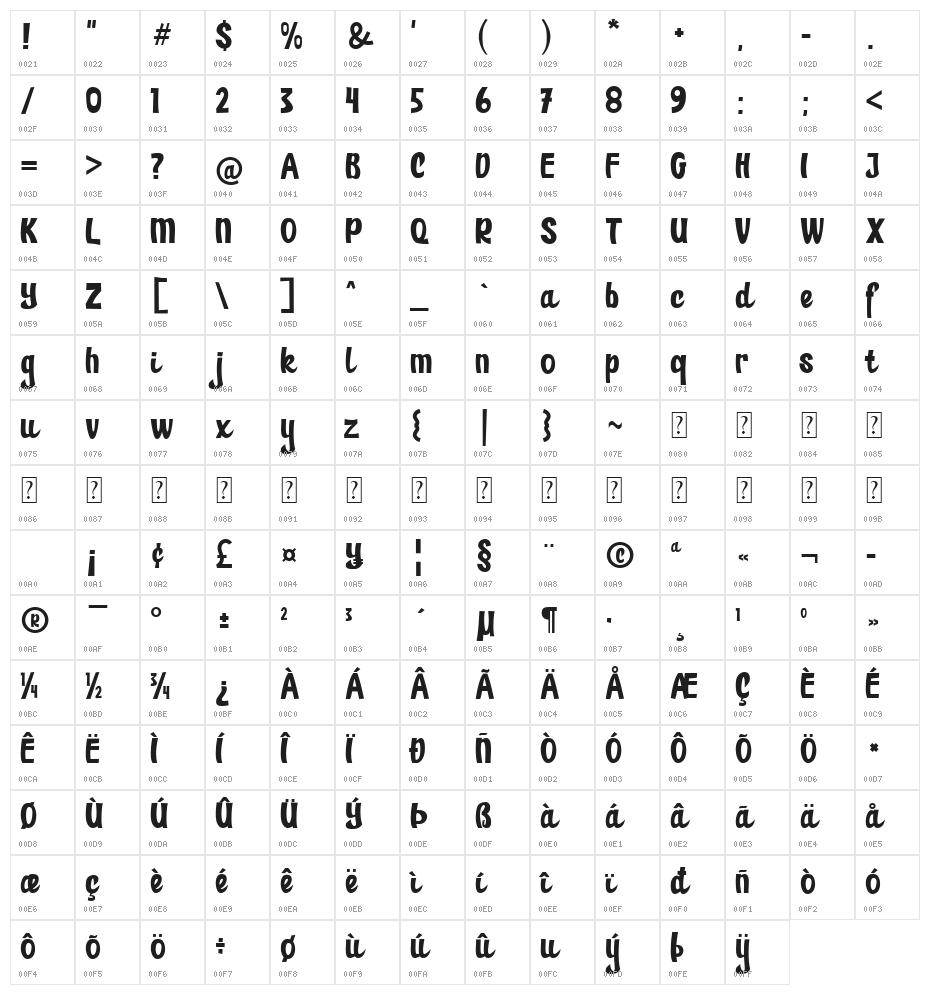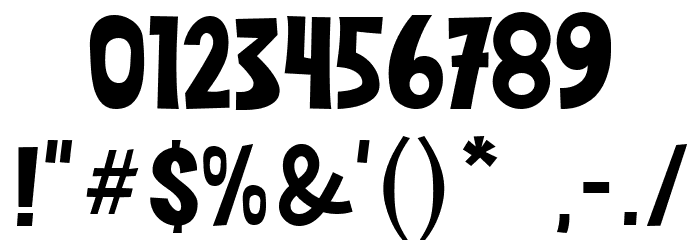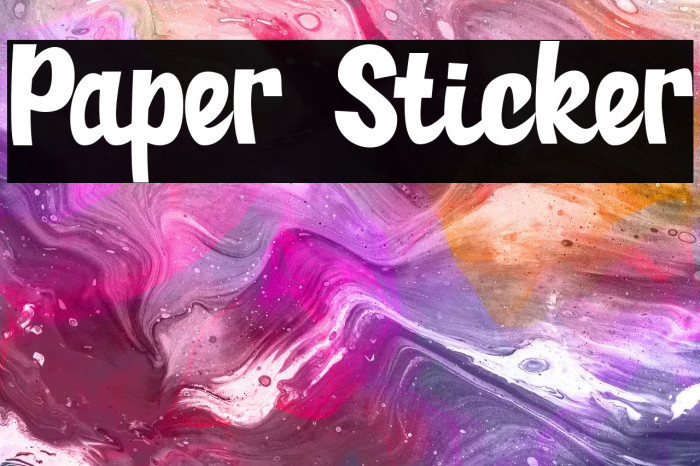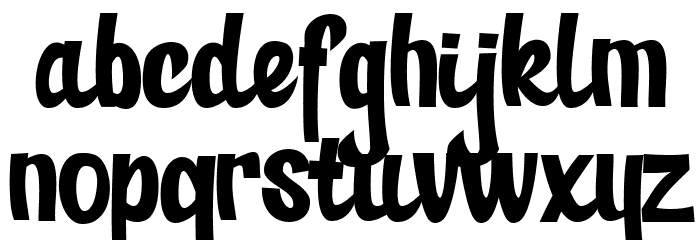
Paper Sticker Font
Paper Sticker Description
This font features a playful and bold style with a hand-drawn appearance. The letters are slightly irregular, giving it a whimsical and informal look. The uppercase and lowercase characters maintain a consistent width, with rounded edges and a slight tilt, adding to its casual charm. The numbers and special characters follow the same design principles, ensuring a cohesive appearance across all glyphs. This font is ideal for projects that require a fun and approachable aesthetic, such as children's books, greeting cards, or playful branding materials.
| Proposed Projects | Ideal for children's books, greeting cards, playful branding, and informal invitations. |